Halloween Fonts for Every Spooky, Cute, and Elegant Project
Every October, my design queue fills up with the same request: something spooky, but not too spooky. Picking Halloween fonts for cards, porch signs, and party dรฉcor usually comes down to one question โ does the piece need a bold display face that reads from across a yard, or a softer script that still looks good on a small place card? After years of pairing type with paper crafts and party stationery, I've learned that the “best” Halloween font depends entirely on where it's going: a banner, an invitation, a cake topper, or a t-shirt.
This roundup sorts 44 Halloween font styles into groups by mood and use, so you can shop by project instead of scrolling endlessly. Every option below comes from Creative Fabrica, with real product names and verified links so you can preview the glyphs before downloading.
Bold Spooky Display Fonts for Signs and Posters
1. Halloween by Unitype
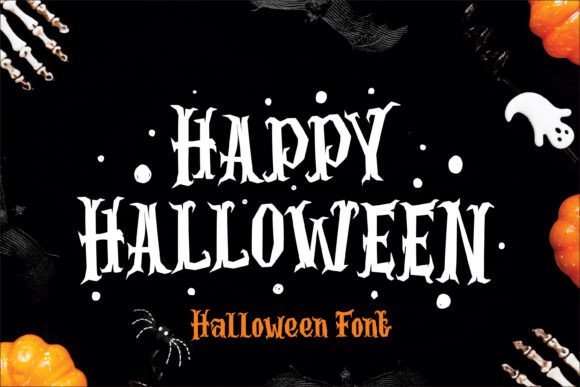
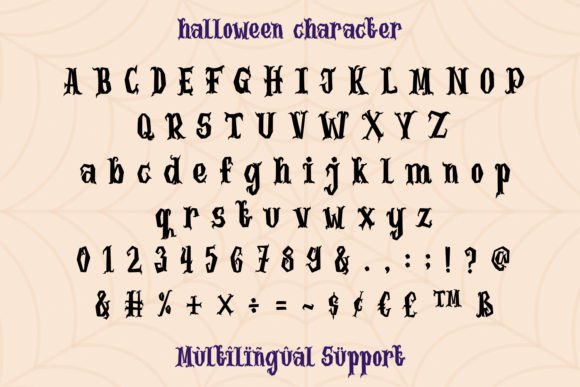
This gothic-style display font leans into elongated, twisted letterforms with cobweb-style flourishes and bat-wing details built into several characters. It reads as bold and theatrical even at small sizes, which makes it a strong choice for headline text on printed materials.
I like this one for porch signs and poster titles where you want the lettering itself to feel like part of the decoration. It's dense enough that long sentences can feel cluttered, so I'd save it for short phrases like “Trick or Treat” rather than full paragraphs.
Best for: yard signs, poster headlines, apparel graphics
Key features: gothic letterforms, cobweb and bat-wing details, bold weight
2. Halloween by Tedha Studio
This is a duo font, pairing a playful handwritten style with a companion serif, both carrying a scary-but-cute Halloween theme. The PUA-encoded glyph set opens up extra swash characters once you dig into a glyph panel.
Having two coordinated styles in one download is genuinely useful for invitations โ you can set a header in the handwritten version and body copy in the serif without hunting for a second typeface that matches the mood.
Best for: invitations, party programs, matching header and body text
Key features: duo font set, PUA-encoded swashes, cute-meets-scary styling
3. The Halloween by Nox Studio
A cool, creepy display face with PUA-encoded glyphs and swashes, built to stand out on Halloween-themed graphics without leaning too heavily into gore or clutter.
This one sits nicely between “playful” and “eerie,” so it's a safer pick if your crowd includes younger trick-or-treaters alongside adults. I'd reach for it on flyers or social graphics where you want instant Halloween recognition.
Best for: flyers, social graphics, mixed-age Halloween events
Key features: PUA-encoded alternates, creepy-but-balanced tone, display weight
4. Ghouls Halloween by Art cafe
Built around ink-and-brush textures, Ghouls Halloween has a loose, handmade look that reads more artistic than most gothic display fonts on this list.
The brush texture gives it real personality for headline text, though the irregular strokes mean it's not the font to use for anything longer than a title or short tagline. I'd use it where the lettering is meant to be a focal point.
Best for: headline art, statement signage, artistic branding
Key features: ink-and-brush texture, handmade look, strong headline presence
5. The Halloween Font Bundle
If you'd rather stock up once than shop font by font, this bundle packs twenty Halloween-themed styles into a single download, covering monster, skull, mummy, zombie, vampire, witch, skeleton, and pumpkin themes.
For anyone producing a full seasonal collection โ invitations, tags, packaging, apparel โ buying twenty coordinated styles at once beats piecing together single fonts from different designers. The trade-off is less curation control over any one style.
Best for: full product lines, print shops, seasonal collections
Key features: twenty fonts included, varied Halloween themes, commercial license
6. Retro Halloween by NPNaay
This design pulls from vintage Halloween ephemera โ the kind of lettering you'd expect on a 1960s trick-or-treat bag rather than a modern horror poster.
Nostalgic type is having a real moment in party dรฉcor, and this font delivers that mood without needing extra styling. It suits a softer, family-friendly Halloween aesthetic more than a haunted-house theme.
Best for: retro-themed parties, nostalgic packaging, family events
Key features: vintage-inspired letterforms, family-friendly tone, display weight
7. Spooky Halloween by IM Studio
A straightforward, decoration-ready display font aimed squarely at Halloween crafting projects, with the extra glyph set accessible once installed.
It doesn't try to reinvent the genre, which is exactly why it's dependable โ clean strokes, obvious Halloween character, and no learning curve for pairing it with other design elements.
What's the difference between a display font and a handwritten font for Halloween projects?
Display fonts are built for short, bold text like titles and headlines, so they can afford heavier styling and novelty details. Handwritten and script fonts are generally easier to read in longer stretches, which makes them a better fit for invitation text, place cards, or anywhere you need full sentences.